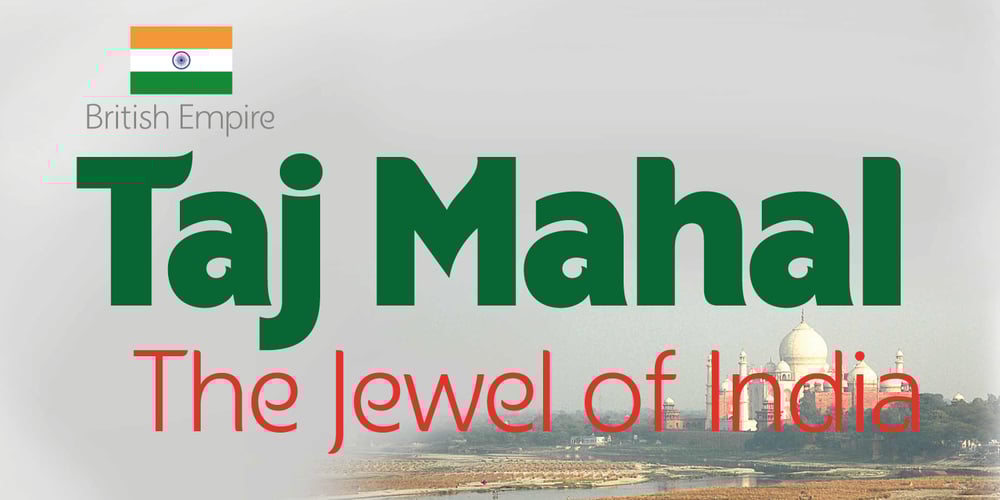
British Empire
British Empire font
British Empire Font Family was designed by Alan Meeks and published by Alan Meeks. British Empire contains 8 styles and family package options. British Empire is an attempt to re-create some of the typographic characterisics of countries within the former British Empire. It is a sans-serif with unusual up-facing serifs on some of the caps and the lower case round characters have flick round terminals Though designed as a headline face it still works well in limited text. There are four weights with four corresponding italics.